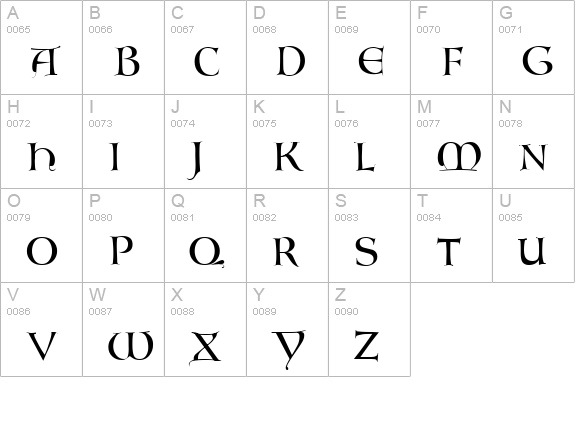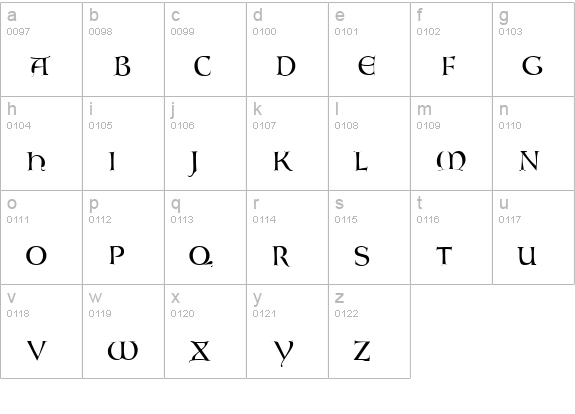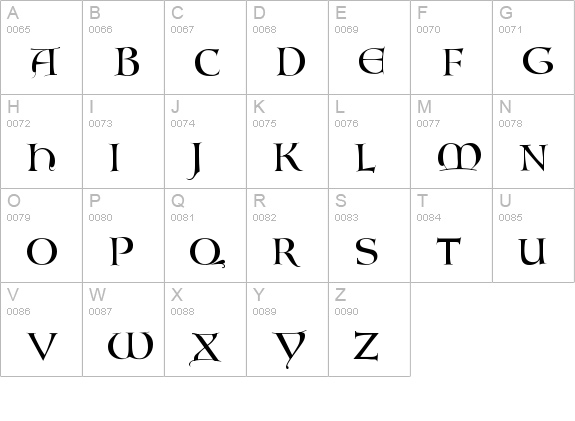
Lombardic Font Details
Lombardic font is a captivating and elegant typeface that exudes a sense of medieval charm and sophistication. Its intricate details and decorative elements make it perfect for adding a touch of historic flair to your projects. The ornate letterforms of Lombardic font are reminiscent of ancient manuscripts and illuminated manuscripts, making it a timeless choice for invitations, certificates, and other special occasions. What's even better is that Lombardic font is available for free download at FontsMarket.com. This means you can easily access and use this exquisite font for your personal and commercial projects without any cost. Embrace the beauty and grace of Lombardic font in your designs and let its historic charm elevate your creations to new heights.